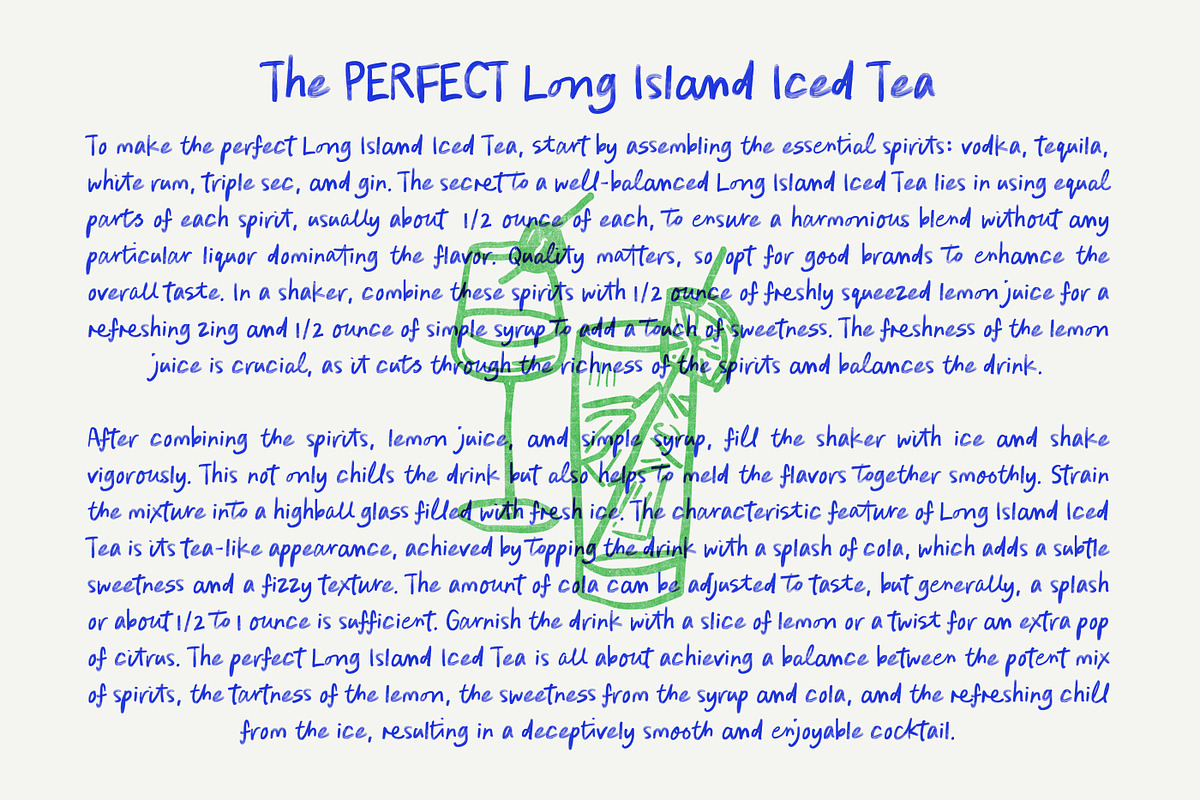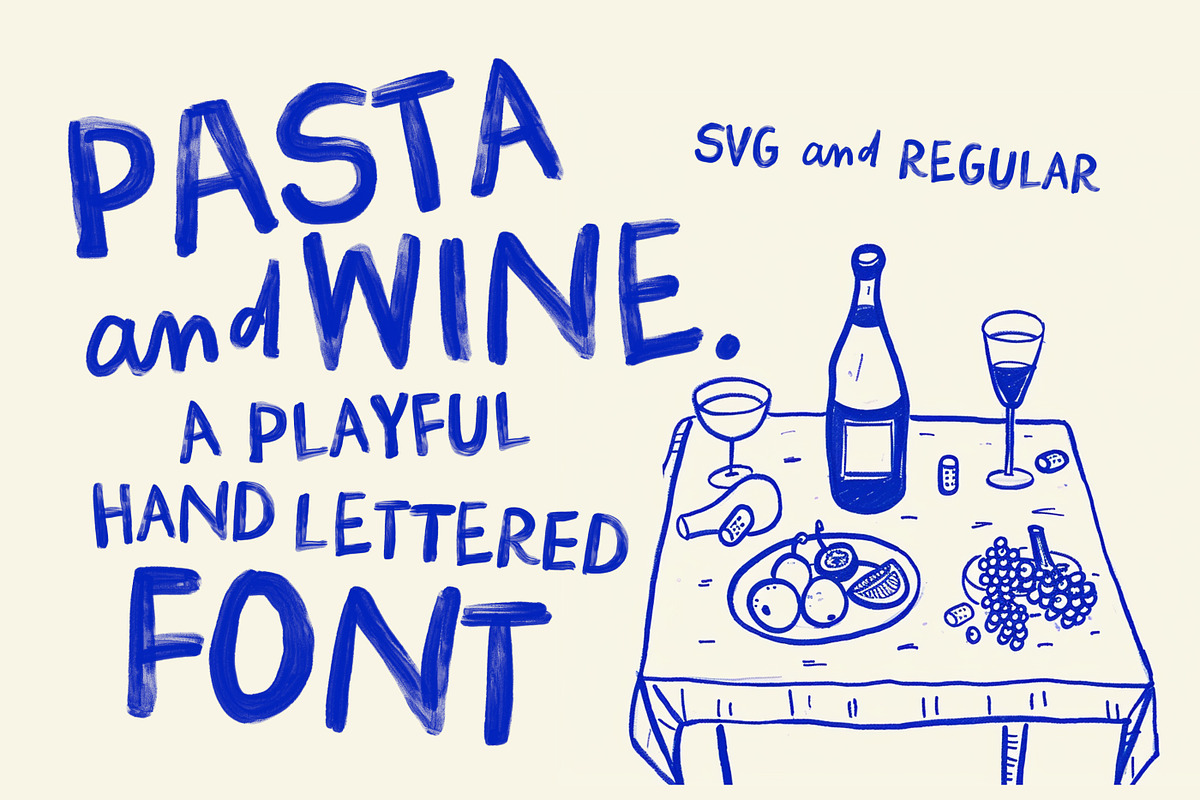
Pasta and Wine Bitmap SVG Font
Say hello to Pasta and Wine!
A fun and super-casual painted Bitmap SVG font that's Lighthearted and full of pizazz!
Perfect for bold and cheeky handpainted posters, greeting cards and branding :)
Pasta And Wine includes 2 styles:
BIG : All-caps bold lettering - dont forget to toggle between uppercase and lowercase keystrokes for different styled uppercase alternates.
and
SMALL : A matching font with lowercase letters, with option Opentype ligatures to add to a more natural hand lettered look.